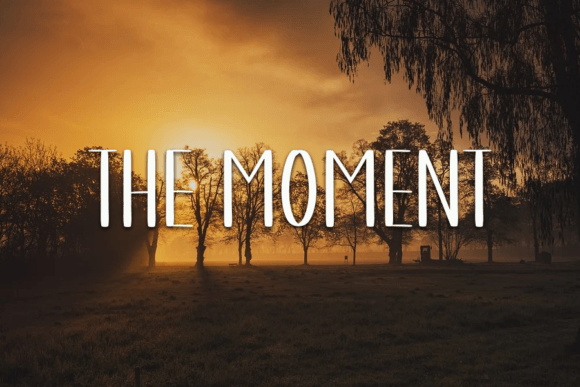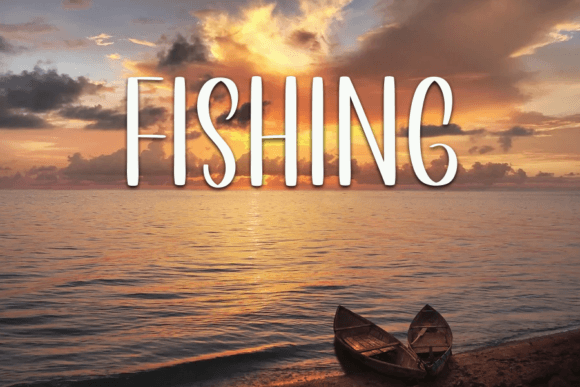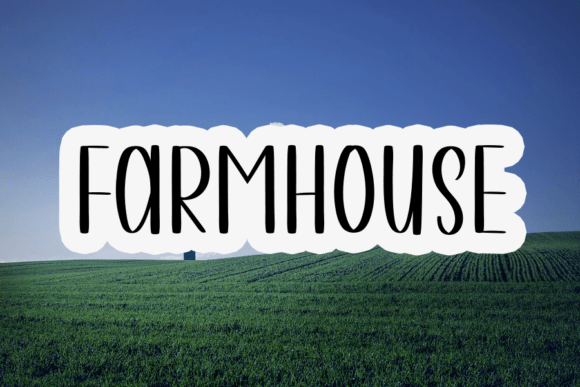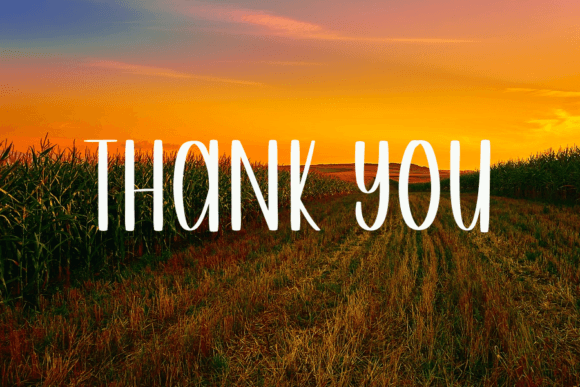
Introduction to Home Mine Font
Have you ever found yourself scrolling through a design inspiration board, feeling uninspired by the same old fonts? Suddenly, you stumble upon a font that makes your heart skip a beat – its elegant curves and precise lines are the perfect match for your creative vision. For designers, discovering a new font can be a game-changer, and today, we’re excited to introduce you to the Home Mine Font, a sweet and beautiful sans serif font that’s sure to elevate your design projects.
With its unique characters that dance along the baseline, the Home Mine Font adds a luxury spark to any design project, making it a valuable resource for designers who demand high-quality typography. Whether you’re working on a free download project or a commercial campaign, this font is sure to impress with its clean lines and transparent background, making it an ideal design resource for any creative project.
Key Features of Home Mine Font
- High-quality font with a unique and creative style, suitable for various projects.
- Includes multiple font weights and styles, providing flexibility for creative projects.
- Perfect for use in logos, branding, and other creative projects where a unique and distinctive font is required.
Honest Review: Home Mine Font
As a designer, I’m always on the lookout for high-quality design resources to elevate my creative projects. Recently, I stumbled upon the Home Mine Font, and I’m excited to share my honest review with you.
- ✨ High-quality font: The Home Mine Font is indeed a high-quality font with a clean and modern design. It’s perfect for a variety of creative projects, from branding to web design.
- ✨ Transparent background: One of the standout features of this font is its transparent background, making it easy to overlay on images or other design elements.
However, I did encounter a few limitations with the Home Mine Font. ⚠️ For one, the font is only available in a limited number of weights, which may not be ideal for designers who require a wider range of options.
Overall, I’m impressed with the Home Mine Font. It’s a great design resource for designers who want a high-quality, modern font without breaking the bank. With its transparent background and free download, it’s an excellent choice for a variety of creative projects.
Tips for Getting the Most Out of Home Mine Font
Use the Home Mine Font with a transparent background to give your designs a clean and modern look. Experiment with different font sizes and colors to create visually appealing text. Consider pairing the Home Mine Font with other high-quality fonts to create a unique and creative design.
The Home Mine Font is perfect for use in logo designs, business cards, and social media graphics. Its high-quality design makes it ideal for use in professional and creative projects. With its transparent background, you can easily combine it with other design elements to create a cohesive look.